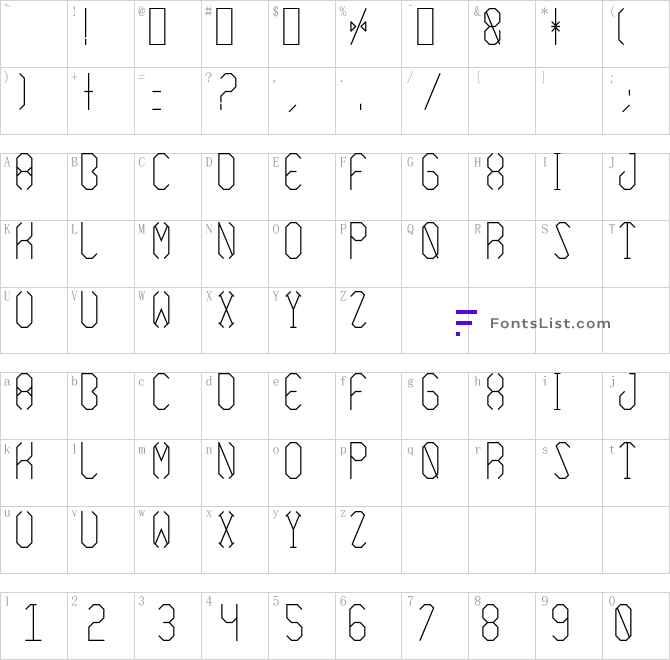
- Font Name:Azimuth
Azimuth-Regular.ttf is a very beautiful artistic font, Azimuth-Regular.ttf is widely used in the design and printing of various books and pictures,Azimuth-Regular.ttf has a strong visual impact,Azimuth-Regular.ttf is a commonly used font in newspapers, magazines and books, and is used in posters, e-commerce Poster design, store design, logo design, font design and other fields.Azimuth-Regular.